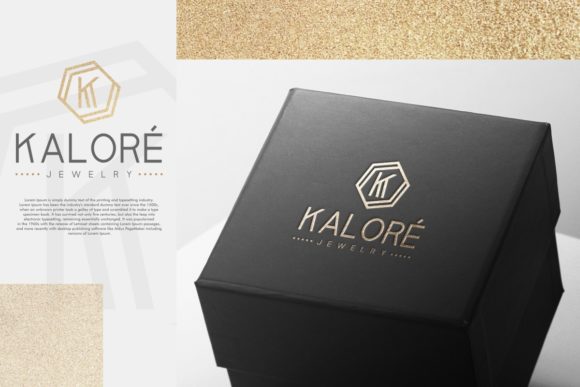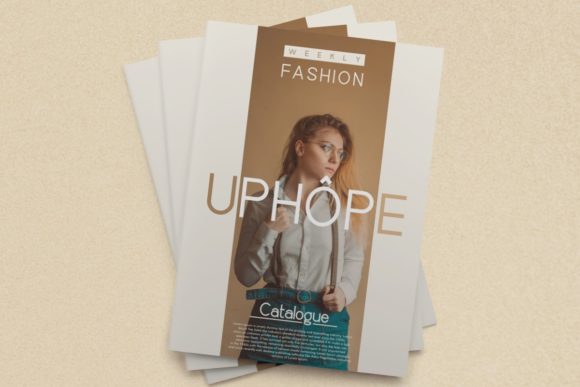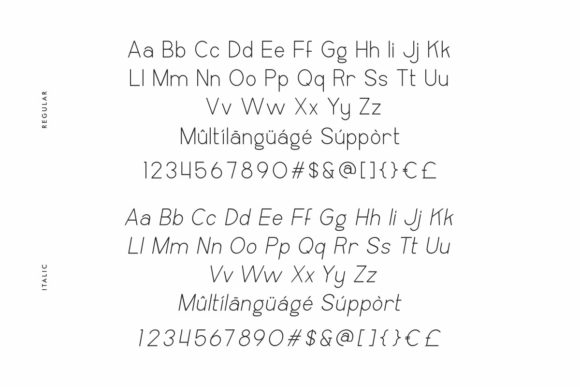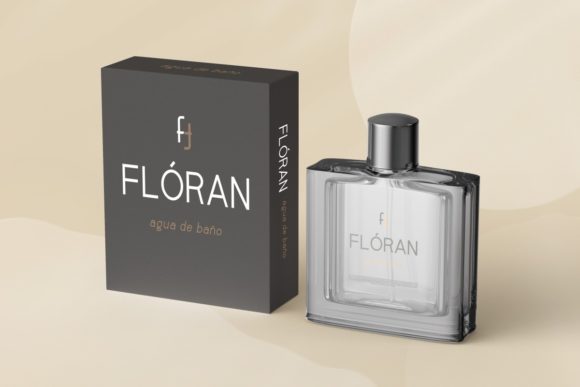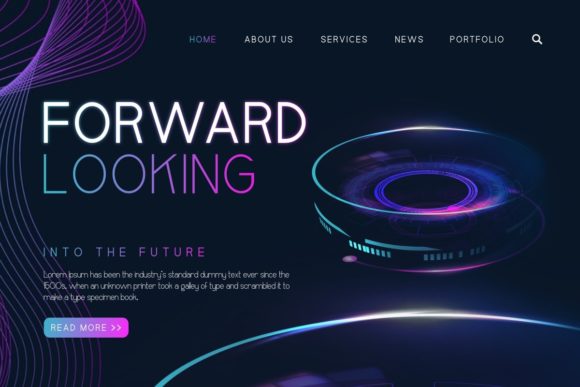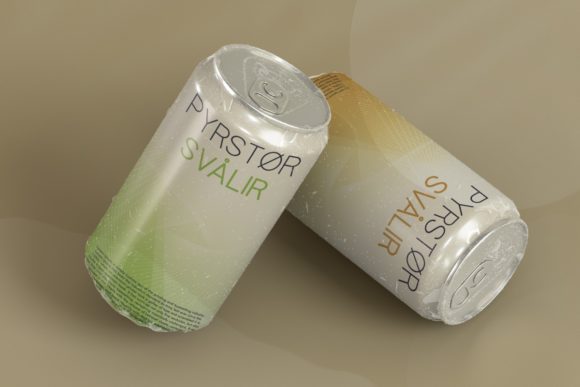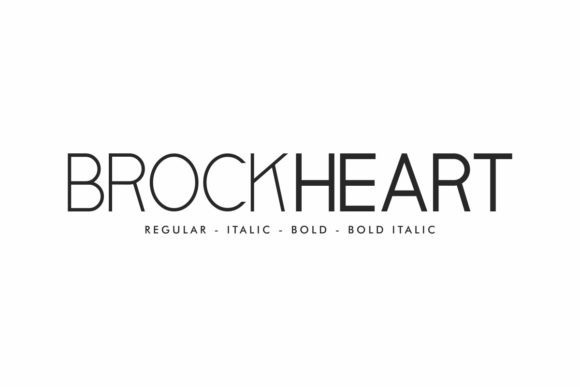
The Brockheart Font: A Designer’s New Best Friend
I’ll never forget the time I was working on a branding project for a fashion startup, and I just couldn’t find the right font. The client wanted something modern, elegant, and versatile, but everything I tried seemed either too boring or too over-the-top. That’s when I stumbled upon the Brockheart font, and let me tell you, it was love at first sight! 💕
What I Love About Brockheart ✨
- ✅ Minimalistic and dainty design that’s perfect for a wide range of projects
- ✅ Versatile and clean sans serif font that’s easy on the eyes
- ✅ Works beautifully for logo branding, product packaging, screen printing, signage, titles, webpages, and more
- ✅ Suitable for various business industries, including fashion, food and drink, games, techno, and more
While Brockheart is an amazing font, it’s not perfect. Here are a few things to keep in mind:
- 🤔 It can be a bit too delicate for very large or bold designs
- ⚠️ Some of the OpenType features might not work seamlessly in all design software
The Story Behind Brockheart
Brockheart was designed with the goal of creating a versatile and elegant sans serif font that could be used in a wide range of projects. The designer wanted to create a font that was both modern and timeless, with a delicate balance of clean lines and subtle curves. The result is a font that’s perfect for designers, crafters, and creative hobbyists who want to add a touch of sophistication to their work.
Q: Is Brockheart suitable for body text?
A: While Brockheart is a beautiful font, it’s best suited for headlines, titles, and short paragraphs. For longer body text, you may want to choose a font with more legibility and flow.